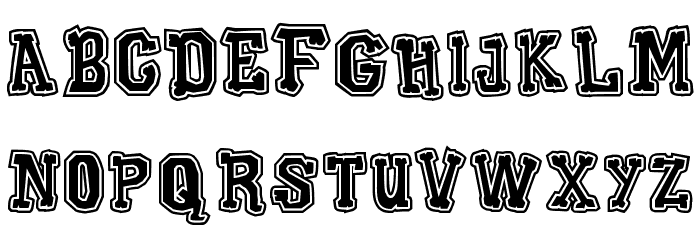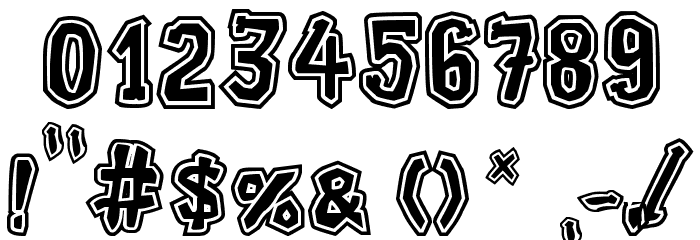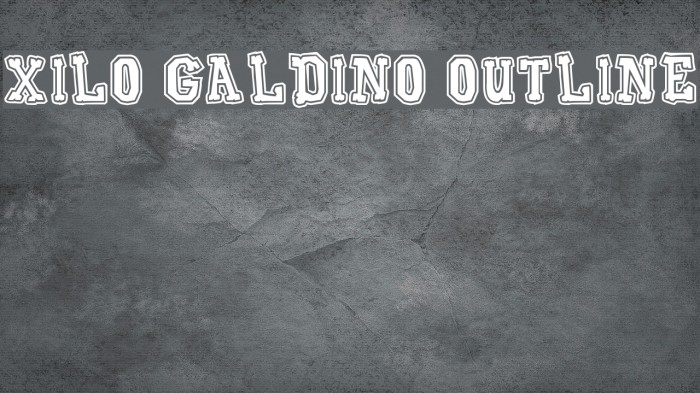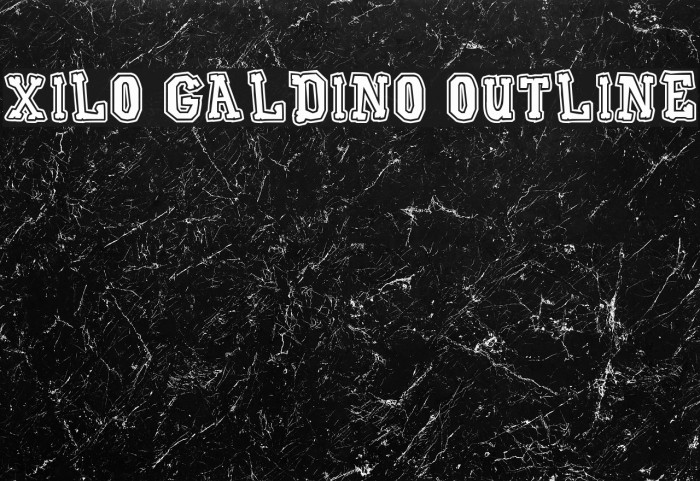
Xilo Galdino Outline Font
This font features a bold, outlined style that gives each character a striking and impactful appearance. The letters are uppercase and lowercase, with a consistent outline that enhances their visibility and adds a decorative touch. The numbers and special characters follow the same design, ensuring uniformity across all elements. The font's style is reminiscent of vintage signage, with a playful yet sturdy look that makes it suitable for eye-catching designs. The bold outlines create a strong contrast, making the characters stand out against any background.
A bold, outlined font with a vintage and decorative style.
- Proposed Projects: Ideal for posters, logos, headlines, and any design requiring a bold, eye-catching font.
- Overall Style: Vintage